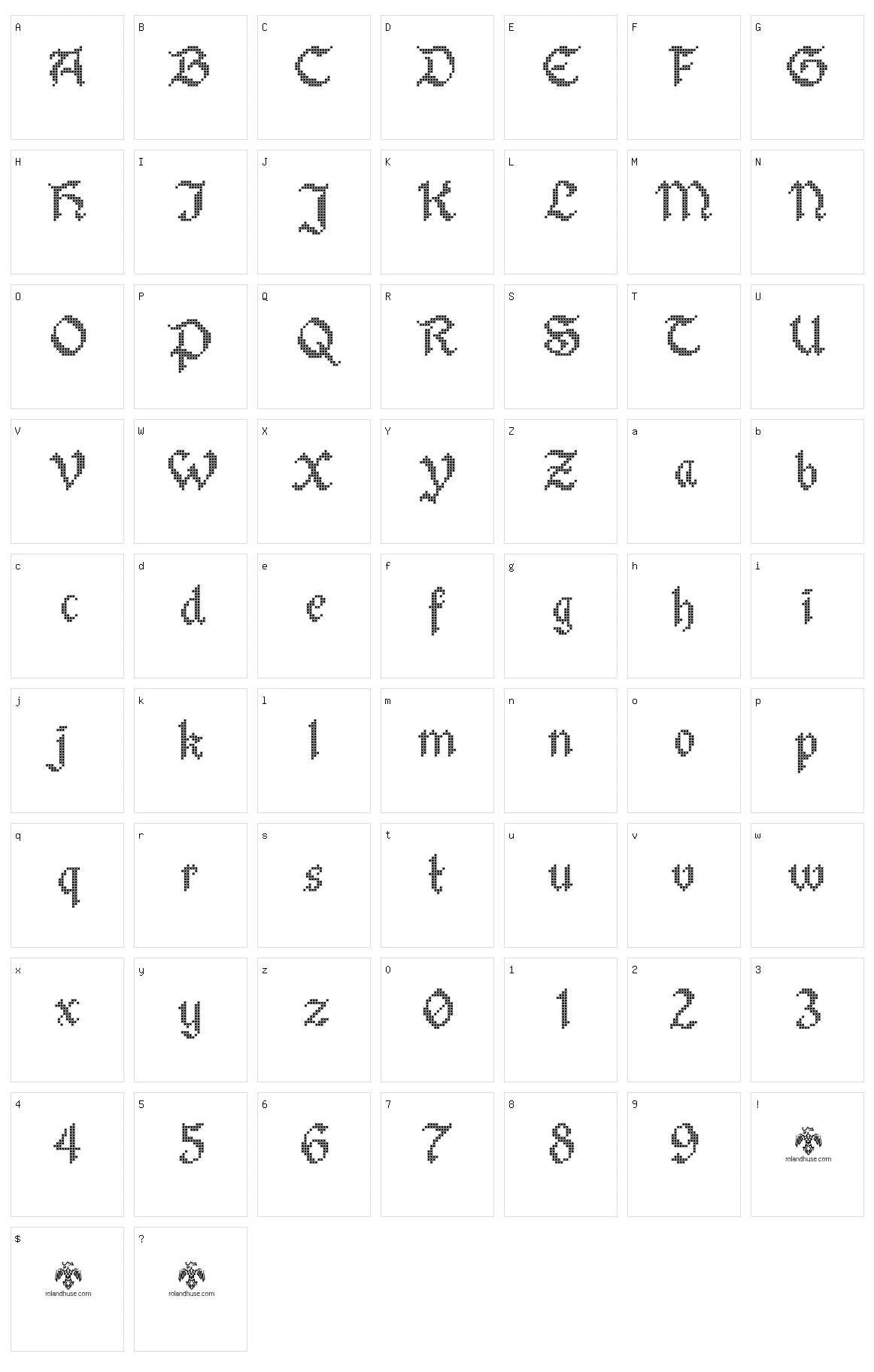
Stitch Warrior
Designed by: Roland Huse Design
Category: Various & Gothic
ÿþSTITCH WARRIOR demo is a trial version of a gothic style stitch font. It 's made of cross stitches ("x") and even kerning is based on 1, 2 or 3 stitches I was trying to be as accurate and close to reality as possible.
Stitch Warrior Character Set